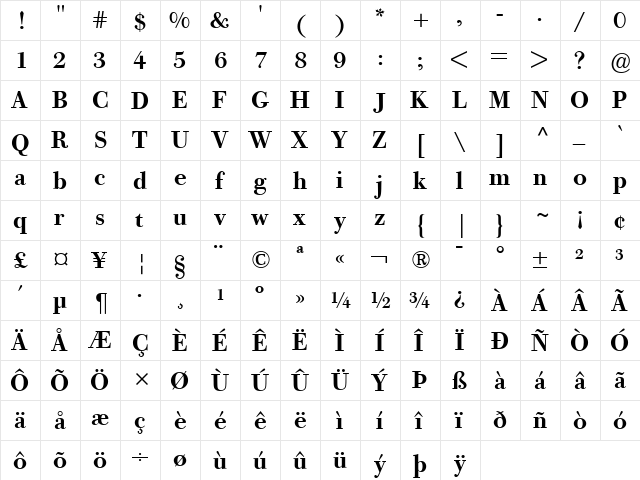
Bodoni Old Face BE Bold Font Preview
Bodoni Old Face BE Bold
Bodoni Old Face BE Bold Font Details
Design Context for Bodoni Old Face BE Typeface
Bodoni Old Face BE offers clean, dependable letterforms without strong stylistic allegiance, making it a practical choice for designers who need flexibility. Its bold stroke weight gives it real presence on the page.